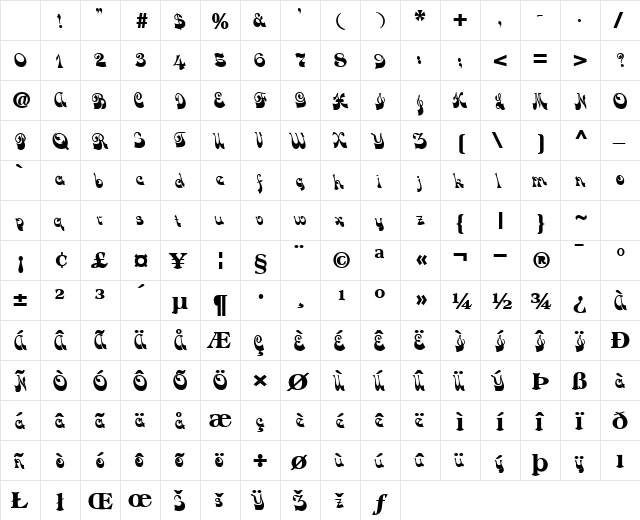
Complete HusandCurseType66 Bold glyph index. Displaying only characters natively supported by HusandCurseType66 Bold font.
HusandCurseType66 is a composed and adaptable typeface that performs quietly and consistently across a wide range of design contexts. Its bold stroke weight gives it real presence on the page.